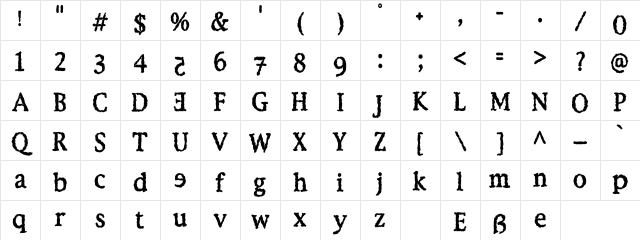
Complete VTEbola Kikwit glyph index. Displaying only characters natively supported by VTEbola Kikwit font.
VTEbola is a composed and adaptable typeface that performs quietly and consistently across a wide range of design contexts.